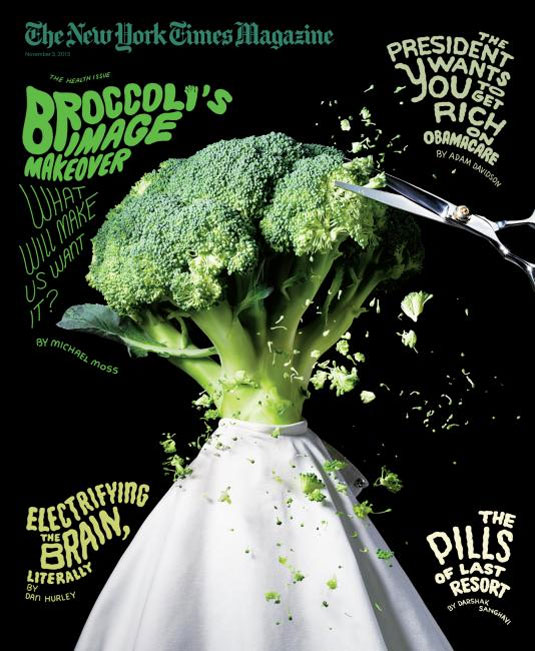
I found this to be a particularly interesting example. The different line weight and organization of the typography was two of the things that caught my eye. Also, due to the fact that the font is not straight cut, it makes the magazine name stand out even more. The typeface is mainly decorative, but you can argue that the magazine uses sans-serif as well. I found it interesting that the artist decided to use bold fonts with thin typography underneath it. This gives an emphasis to the main titles and articles in the magazine.
Since the image is very organic looking due to the nature of the broccoli, I feel as though the font reflects that as well. Vertical scaling was used slightly in this font as you can see by the letters being slightly stretched upwards. In addition to this, the artist decided to use all caps for the cover. Normally this wouldn’t work for the whole image, but due to the contrast of bold and thin, I think it looks well put together. The width of the main titles are much thicker than the subtitles, which is another attribute to the typography. The hierarchical order of the cover is also very strong. The way the main title hangs over the broccoli initially draws the reader’s eye to that spot and then moves it down to the other titles.
This font is a great representation for the main subject of the magazine. Not only does the typefaces blend in together, but they compliment each other to create an appealing design that will cause the readers to wonder what is inside the magazine.